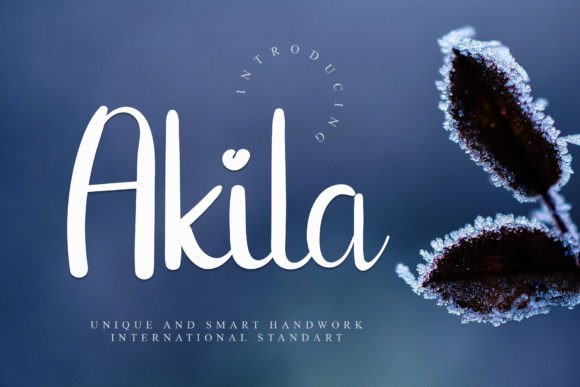
Adorn your designs with the allure of Akila, a font family that exudes elegance in every letterform. A symphony of curves, this calligraphy-inspired font dances across the page with its expressive strokes and delicate flourishes. Akila is more than just a font; it's an artistic journey that brings life to your words, inviting your readers to dive deep into the depths of your creativity.
Picture your wedding invitations, enveloped in the grace of Akila, each letter an intimate whisper of your love story. Its carefully crafted glyphs intertwine like lovers, echoing the enduring bond you share. Or envision your business cards, adorned with Akila's sophisticated charm, making a lasting impression on potential clients.
Akila's versatility knows no bounds. Create captivating social media posts, infuse your website with a touch of sophistication, or design eye-catching logos that speak volumes about your brand's personality. It's a font that elevates every project, adding a touch of magic and brilliance.
More than just a tool for communication, Akila is an expression of art. Its varied baselines, fine lines, and beautiful glyphs create a visual feast that captivates the eye and ignites the imagination. With Akila, your designs transcend the ordinary, becoming masterpieces that leave an indelible mark on the hearts of your audience.
Unleash the boundless potential of Akila and witness the transformation of your creative endeavors. Let your words dance with grace, let your ideas bloom with elegance, and let Akila be your guide on this extraordinary journey. Discover the world of Akila, where beauty and inspiration intertwine to create something truly remarkable.